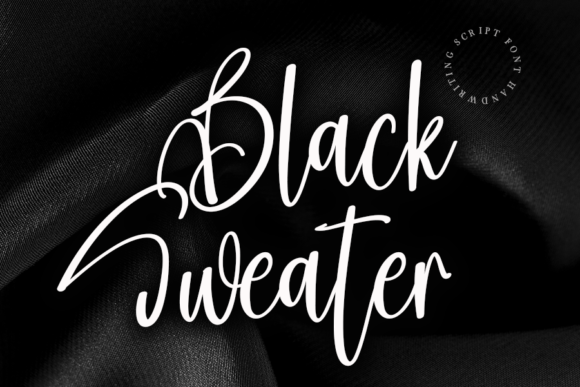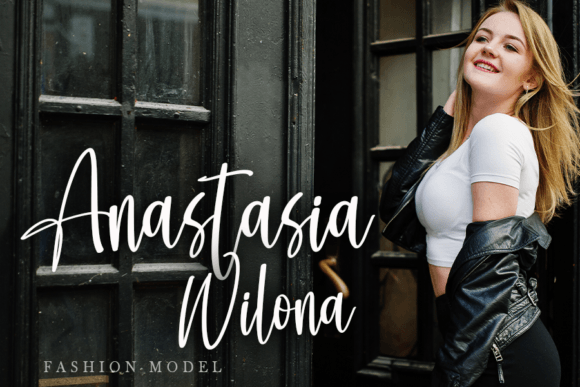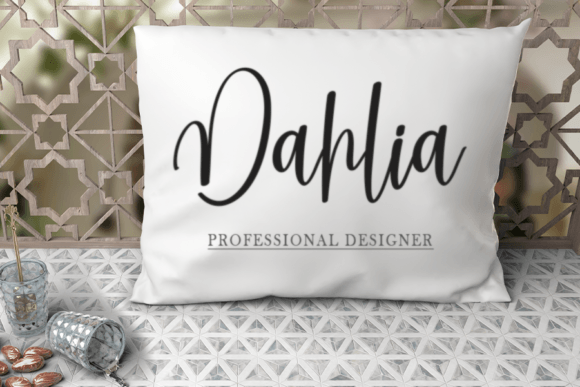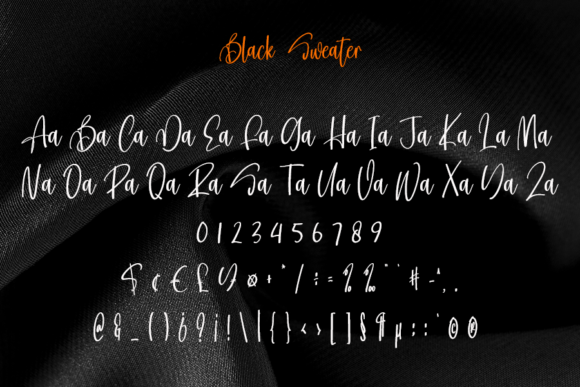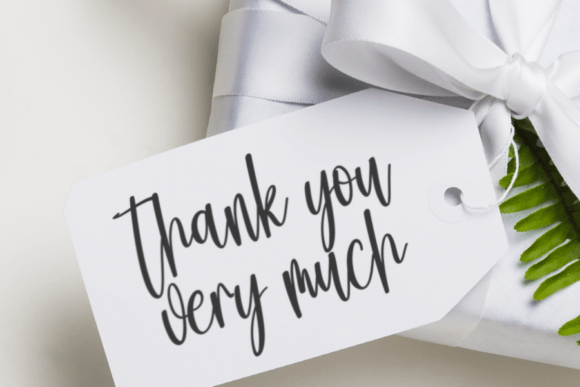
Black Sweater Font
Add a distinctive and elegant flair to your creative projects with the Black Sweater font. This gorgeous handwritten script is designed to make your work stand out with its smooth, curvy lines and stylish flow. Whether you’re creating product packaging, branding materials, magazine covers, social media posts, weddings, or other creative designs, Black Sweater is the perfect choice.
The Black Sweater font features thick yet graceful strokes that add personality and sophistication to your projects. Its unique handwritten style helps you convey warmth and charm while maintaining professionalism and readability.
You can use the Black Sweater font for various applications, including product packaging, logo design, advertisements, social media graphics, wedding invitations, and more. Its balanced and eye-catching style makes it easy to use for both headlines and smaller text elements.
Despite its bold appearance, the Black Sweater font offers excellent readability across different sizes. It works perfectly for both striking headlines and elegant body text, helping your message shine clearly.
Using the Black Sweater font will add a luxurious and inviting character to your designs. If you want a handwritten font that combines elegance with boldness, this font is a fantastic addition to your font collection.
In summary, the Black Sweaterfont is an elegant and curvy handwritten script. Ideal for product packaging, branding, social media, weddings, and more, it brings a unique, sophisticated touch to every project. Download it today and enhance your creative work with Black Sweater.